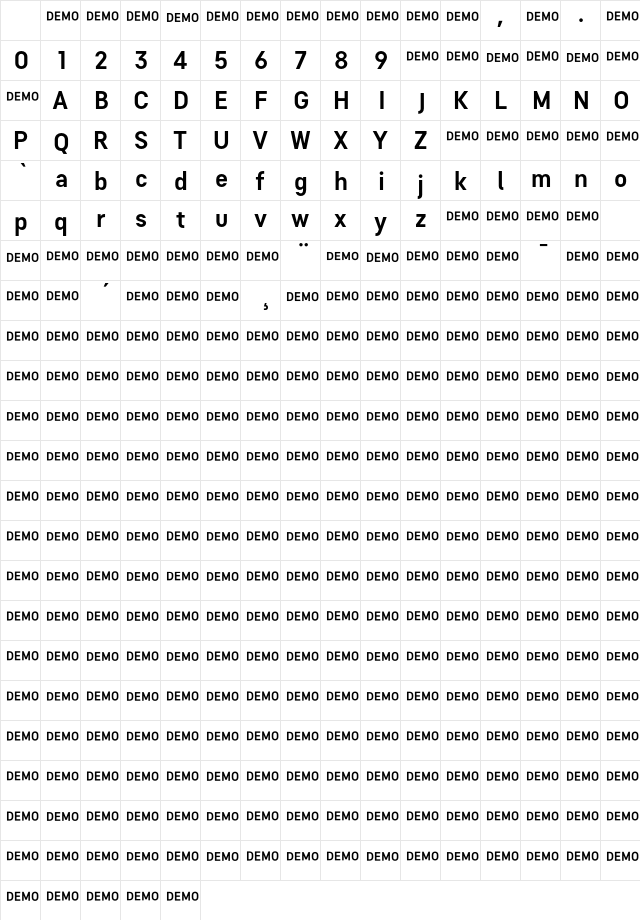
Complete Tilson Bold Demo Regular glyph index. Displaying only characters natively supported by Tilson Bold Demo Regular font.
Tilson Bold Demo is a composed and adaptable typeface that performs quietly and consistently across a wide range of design contexts. Its bold stroke weight gives it real presence on the page.